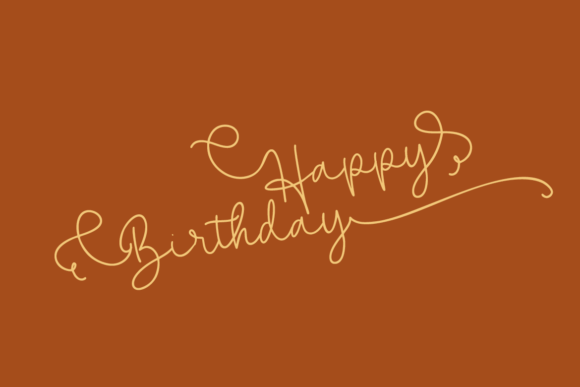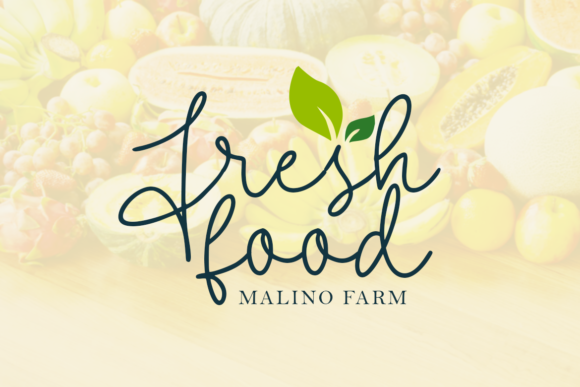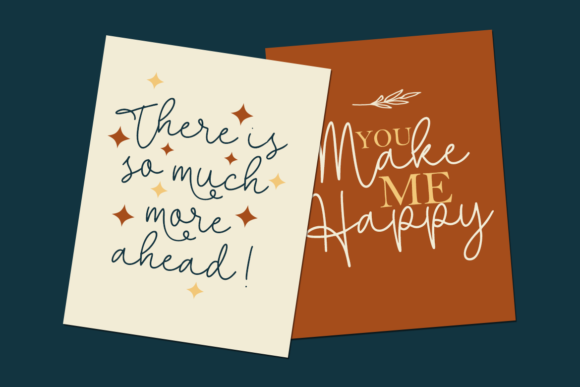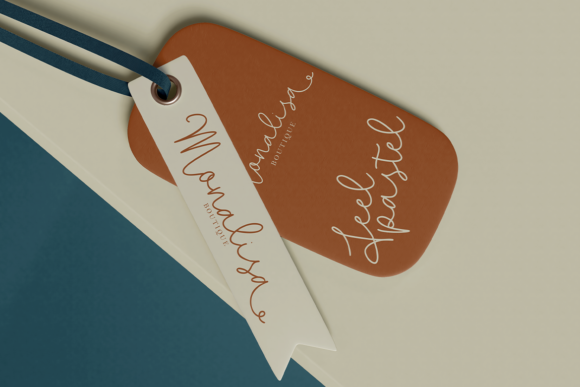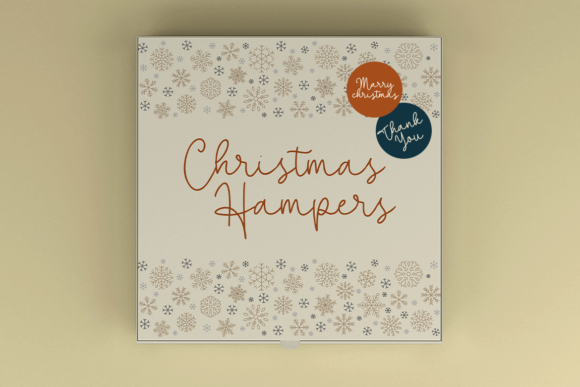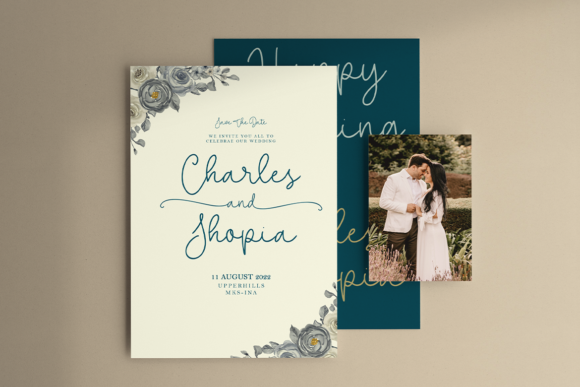
Introduction to Shallylova Font
Shallylova is a lovely and delicate script font that exudes elegance and class.
This font was particularly crafted for those who need a beautiful and refreshing look to their designs Shallylova is PUA encoded which means you can access all glyphs and swashes with ease.
Key Features of Shallylova Font
Why Choose Shallylova Font?
Shallylova Font offers exceptional quality and versatility, making it a valuable addition to your design toolkit. Whether you’re creating for personal projects or commercial use, Shallylova Font delivers professional results.